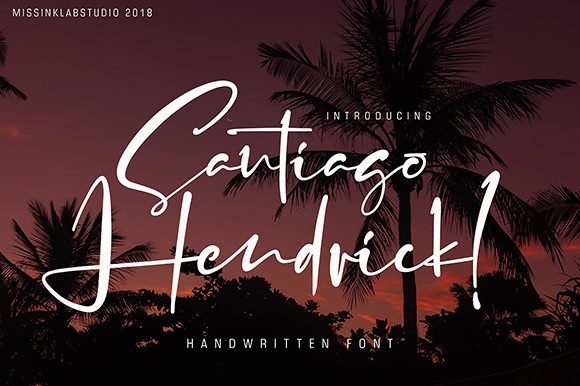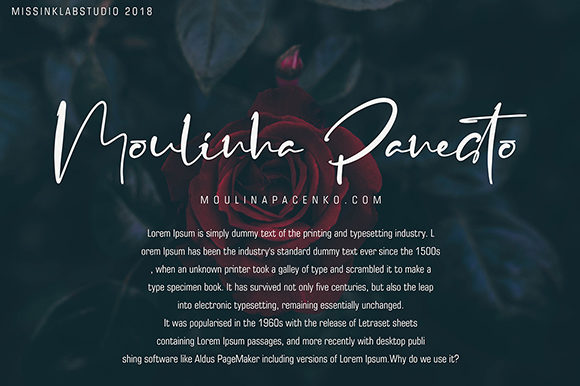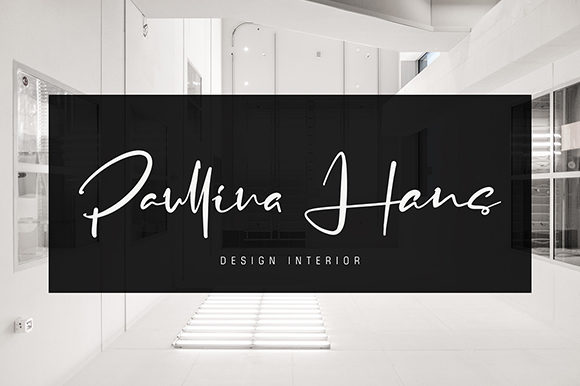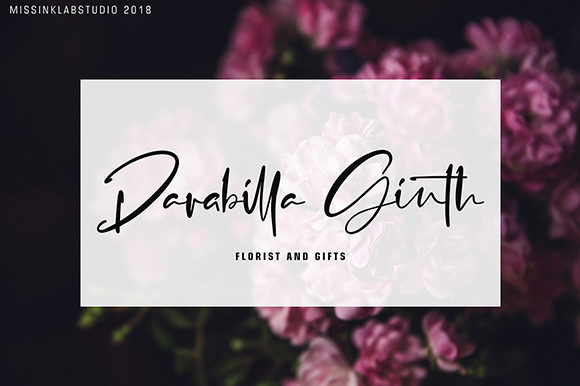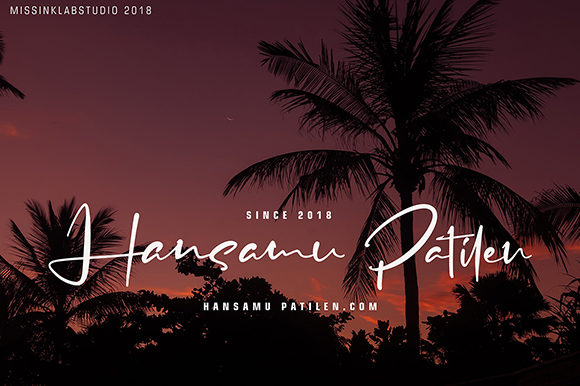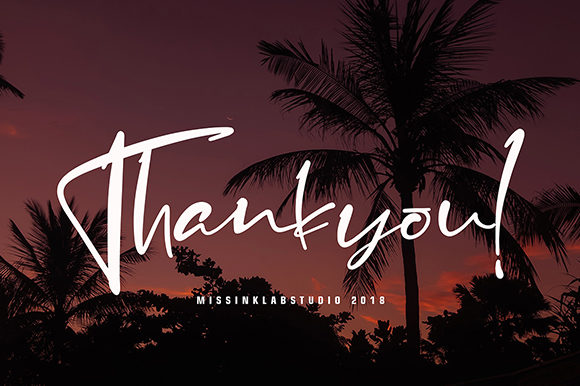
Santiago Hendrick Font
About Santiago Hendrick Font
Santiago Hendrick is a beautiful handwritten font with a light, and slightly retro feel. It will add a charming 80’s vibe to any design project.